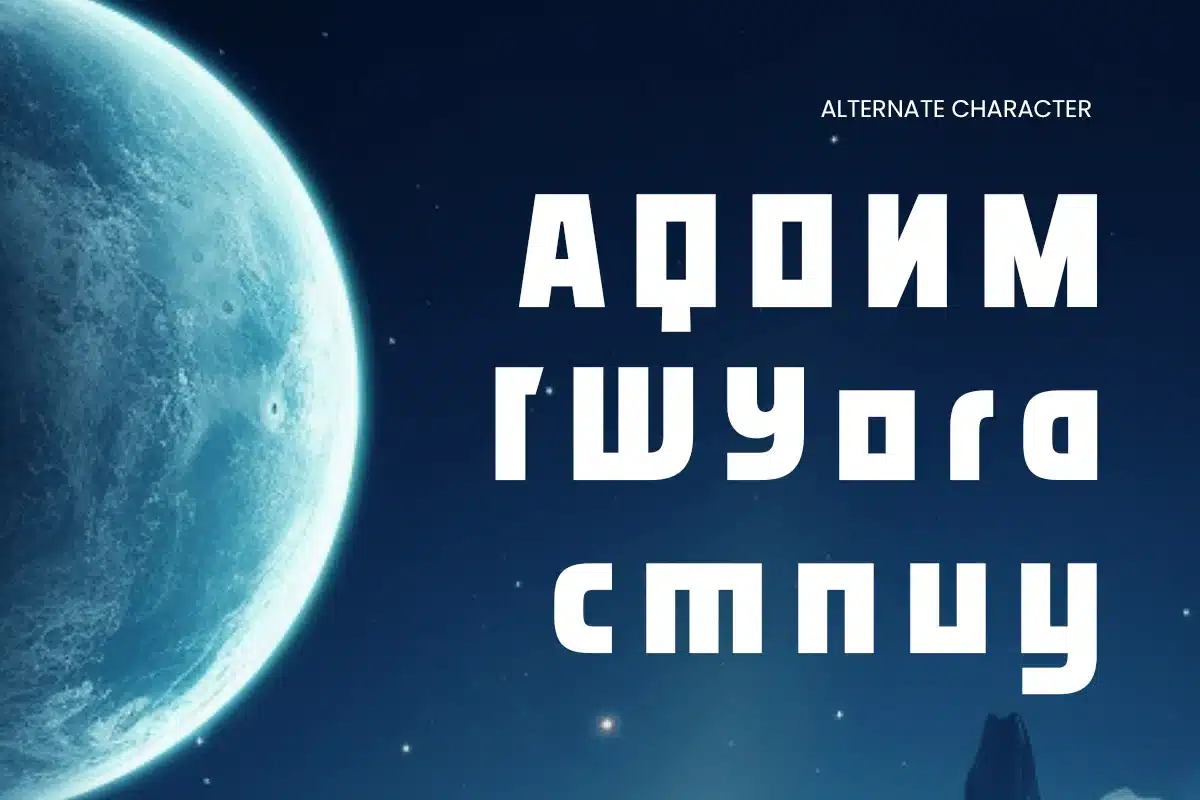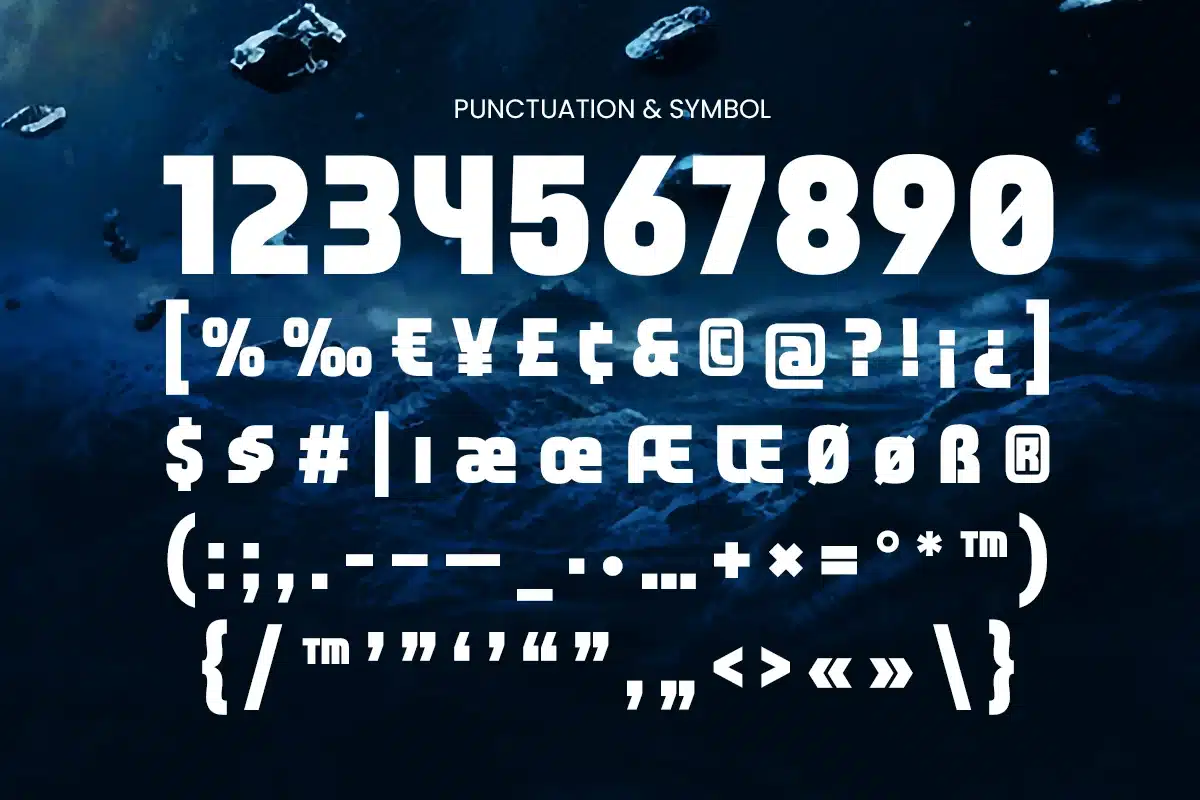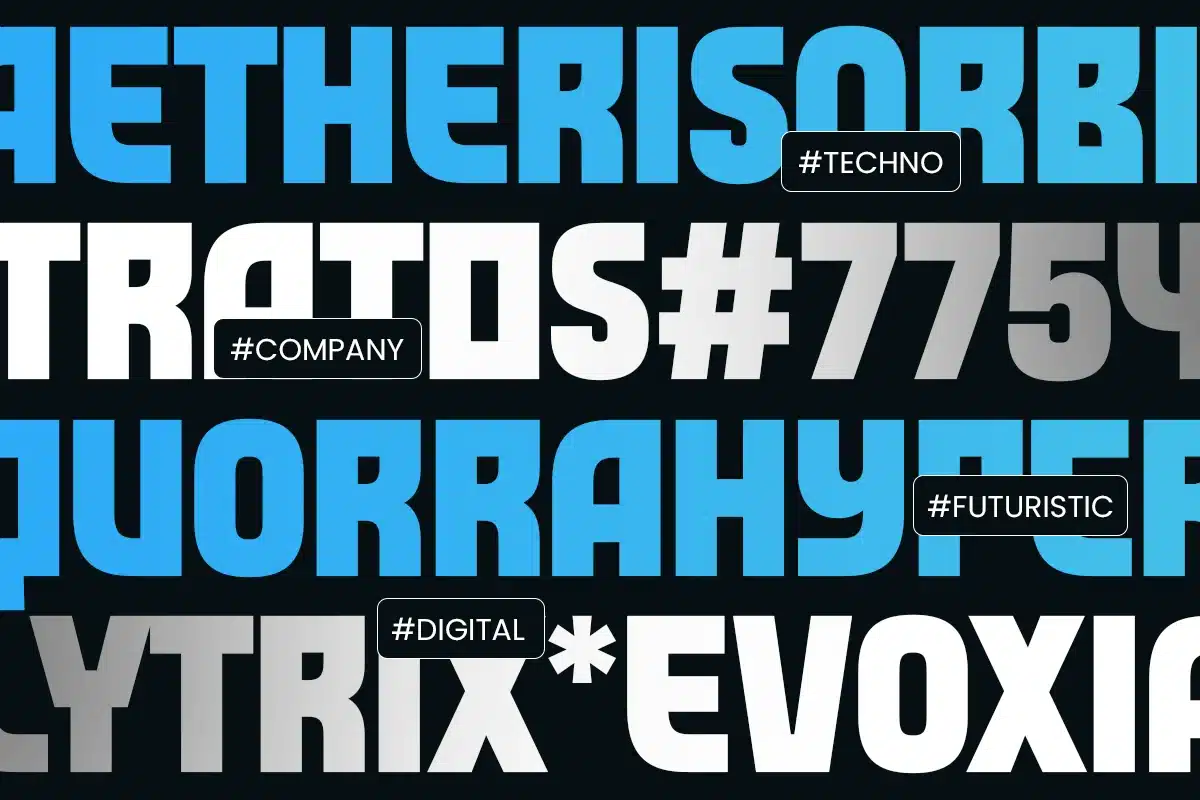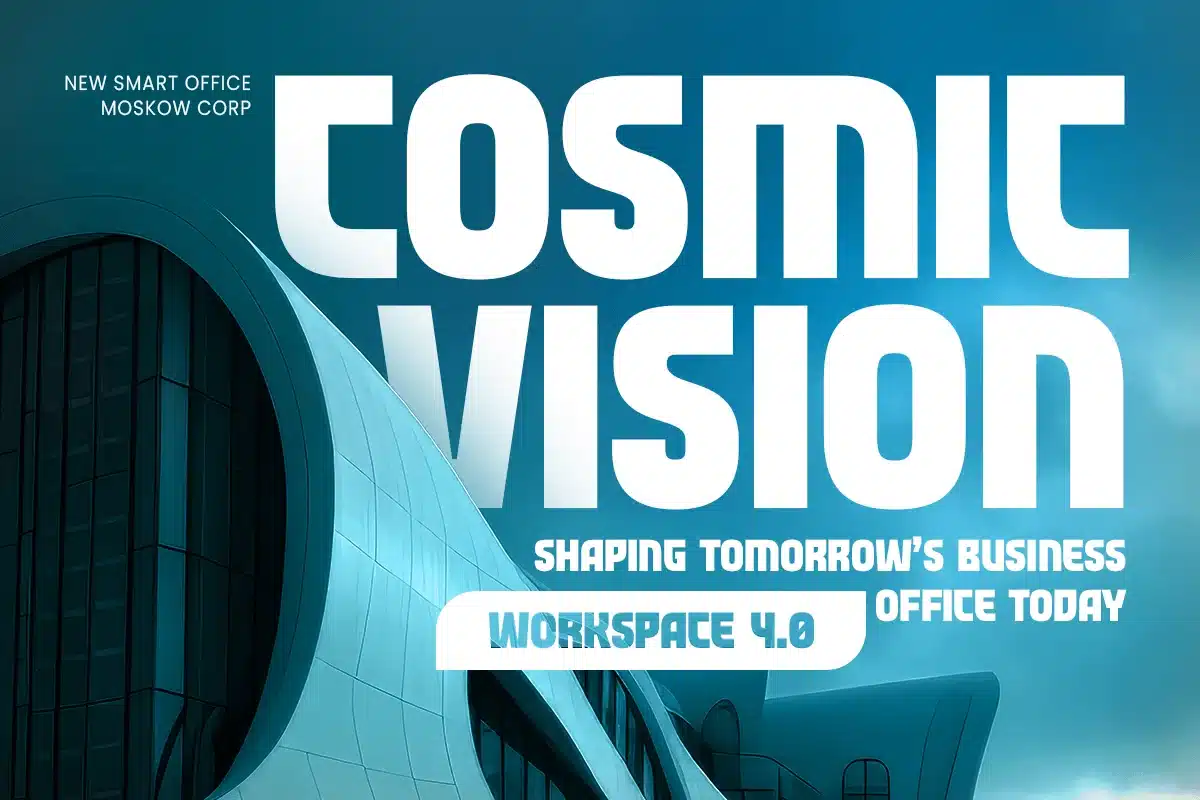
Journey – Techno Logo Font
JOURNEY is a techno logo font built for the future of digital design. With sharp geometric forms, futuristic aesthetics, and balanced proportions, it’s perfect for brands, startups, and creative projects that want to communicate innovation and forward-thinking identity.
Ideal for logos, interface design, posters, tech branding, and product packaging, JOURNEY delivers a sleek and professional tone with a strong digital character. Its clean structure and subtle angles make it suitable for both corporate and experimental visuals, giving your designs a cutting-edge appeal.
Inspired by modern technology and sci-fi interfaces, JOURNEY bridges minimalism and energy — making it a go-to font for designers working on next-generation branding, esports visuals, or high-tech campaigns.
JOURNEY – Techno Logo Font Features
- Futuristic and geometric character set for digital branding
- Perfect for tech startups, esports, UI/UX, and sci-fi visuals
- Strong and clean letterforms ideal for logos and modern layouts
- Works beautifully in both print and digital design systems
- OpenType features for design versatility
Define your next digital identity with JOURNEY – the ultimate techno logo font for futuristic, modern, and innovative branding. 🚀✨